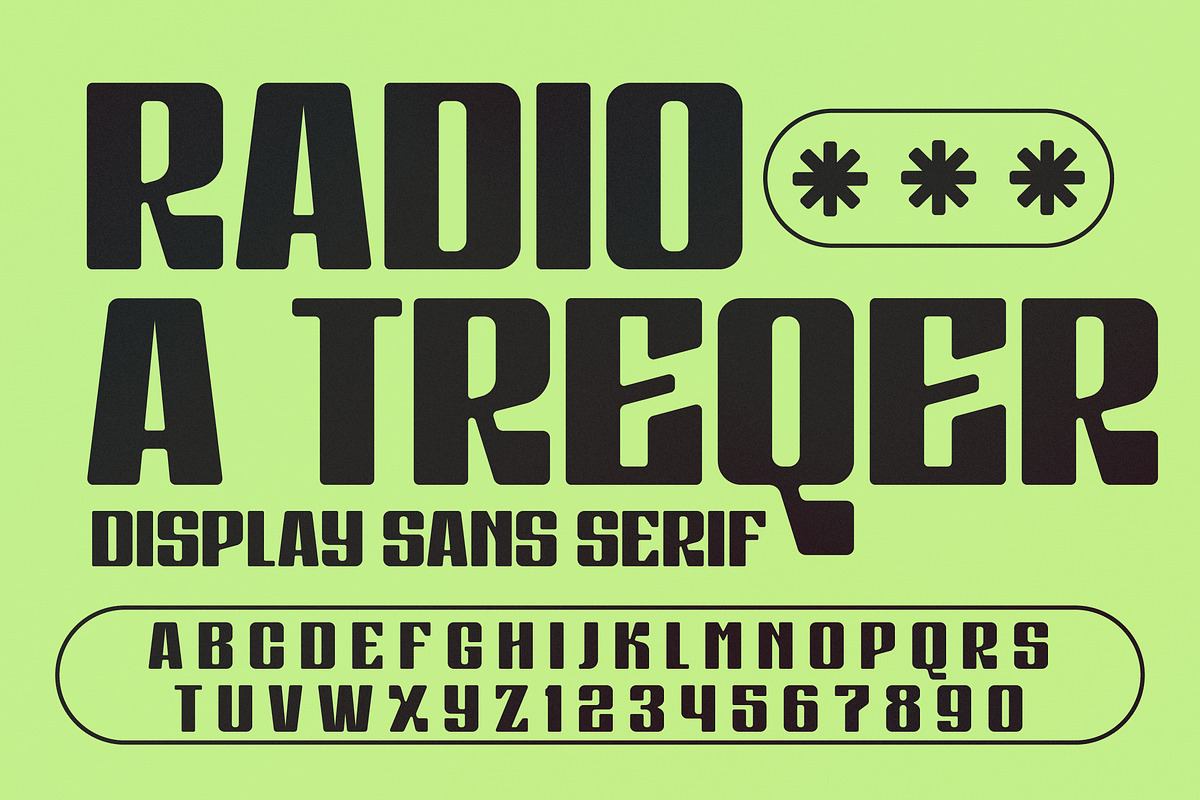
Radio A Treqer Display Font Free Download
Turn up the volume with the Radio A Treqer Display Font Free Download — a bold, high-impact display typeface inspired by retro tech, vintage radio vibes, and futuristic aesthetics. With its sharp angles, stylized geometry, and electrifying presence, this font is perfect for music covers, streaming overlays, event posters, tech branding, and digital art that demands attention.
Radio A Treqer captures a unique mix of old-school charm and modern attitude, making your headlines and titles pop with personality. Whether you're designing for a synthwave project, an album drop, or a neon-soaked brand, this font dials in the perfect frequency.